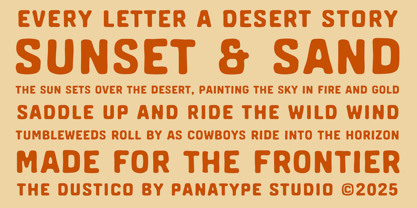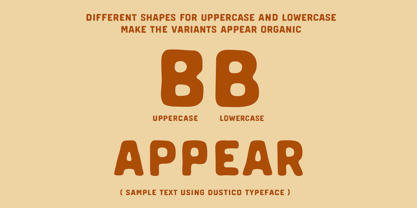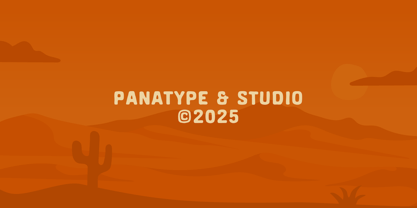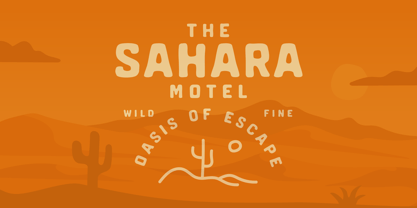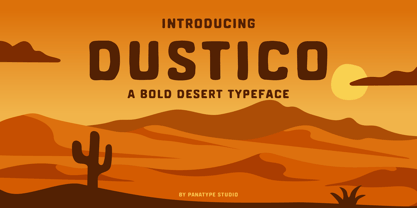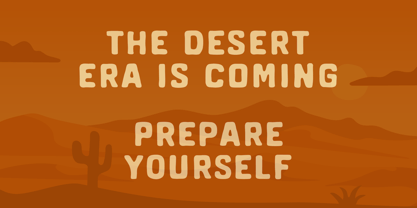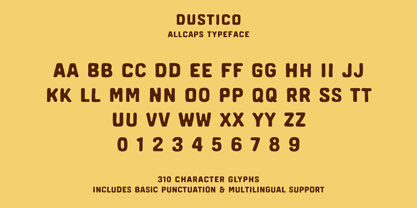
Dustico
von Panatype Studio
Die Schriftfamilie Dustico wurde von Ajusia entworfen und von Panatype Studio veröffentlicht. Dustico enthält 1 Stile.
Dustico – Bold Western Desert Font
Introducing Dustico, a bold and charismatic typeface inspired by the dusty trails, golden sunsets, and wild spirit of the desert west. With chunky, rounded forms and a soft yet rugged feel, Dustico brings playful confidence to your creative projects.
Whether you're designing for branding, vintage logos, posters, packaging, or western-themed graphics, Dustico adds a unique personality that stands out in both print and digital.
Designer: Ajusia
Herausgeber: Panatype Studio
Foundry: Panatype Studio
Eigentümer des Designs: Panatype Studio